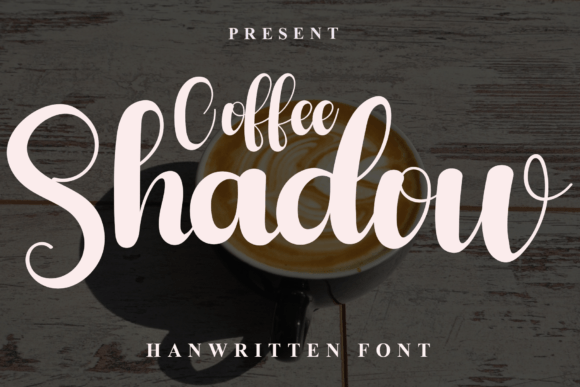
Step into the realm of elegance with Coffee Shadow Font, a captivating handwritten script that dances across your screen like a symphony of ink. Inspired by the allure of a warm cup of coffee, this font exudes a charm that is both timeless and captivating.
Crafted with meticulous attention to detail, Coffee Shadow Font weaves together the grace of calligraphy with a modern twist, creating a visual masterpiece that will elevate your projects to new heights. Each letter is a work of art, flowing effortlessly into the next, carrying your words with an air of sophistication.
Designed to capture the essence of a jewelry business, Coffee Shadow Font embodies the allure of precious gemstones and the brilliance of finely crafted metals. It is a font that speaks of luxury and refinement, perfect for adding a touch of elegance to your branding, logos, invitations, or any creative endeavor that demands a touch of class.
With Coffee Shadow Font, you can:
1. **Entice Customers with Visual Charm:** Captivate your audience with the font's inherent beauty, drawing them into your brand's story.
2. **Elevate Your Branding:** Craft a brand identity that exudes sophistication and professionalism, leaving a lasting impression on your customers.
3. **Craft Unique Logos:** Create logos that stand out from the crowd, embodying the essence of your brand and resonating with your target audience.
4. **Personalize Invitations:** Add a personal touch to your invitations, making each one a cherished keepsake that reflects the significance of the occasion.
5. **Elevate Your Marketing Materials:** Infuse your marketing materials with a touch of elegance, enhancing their impact and leaving a lasting impression on potential customers.